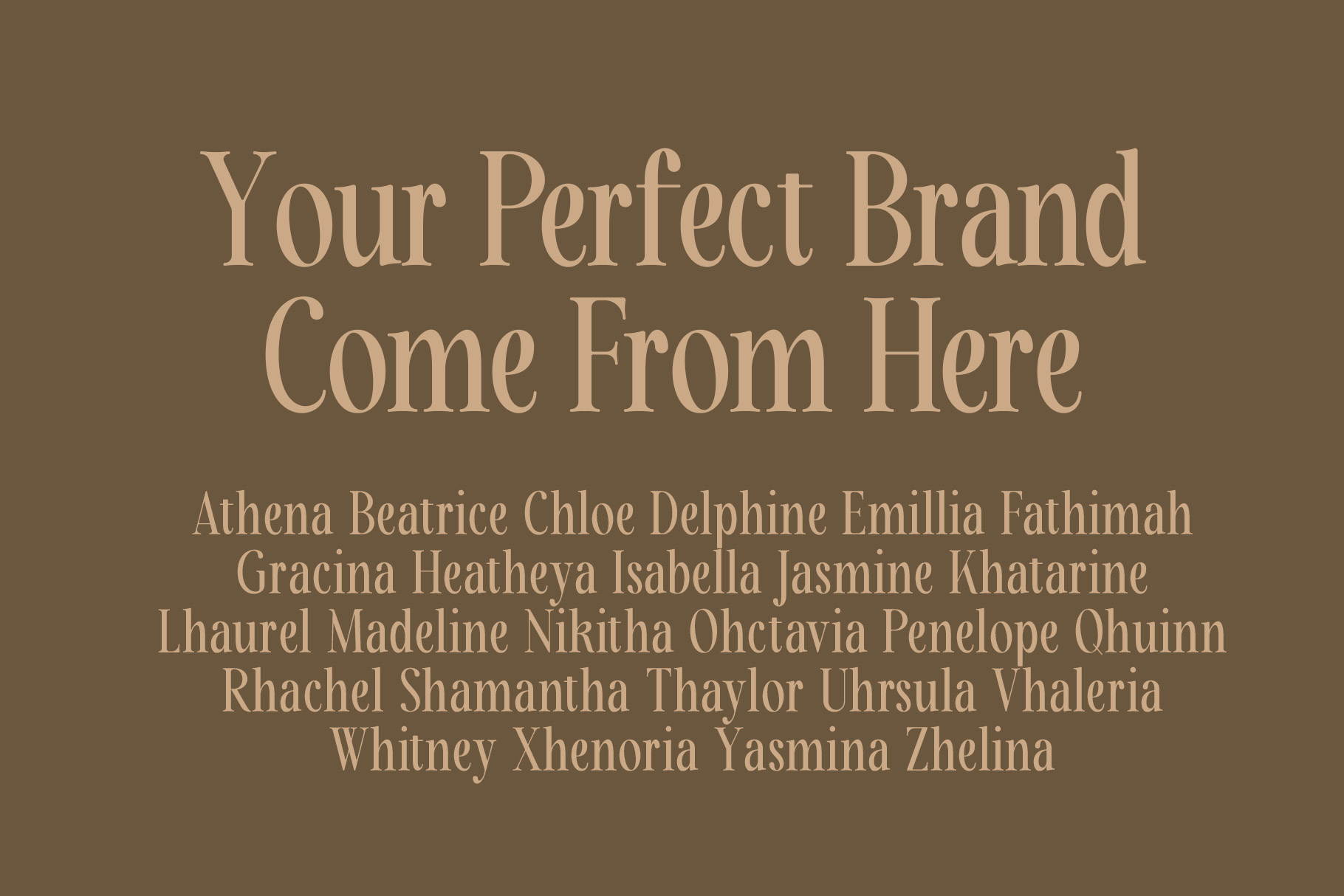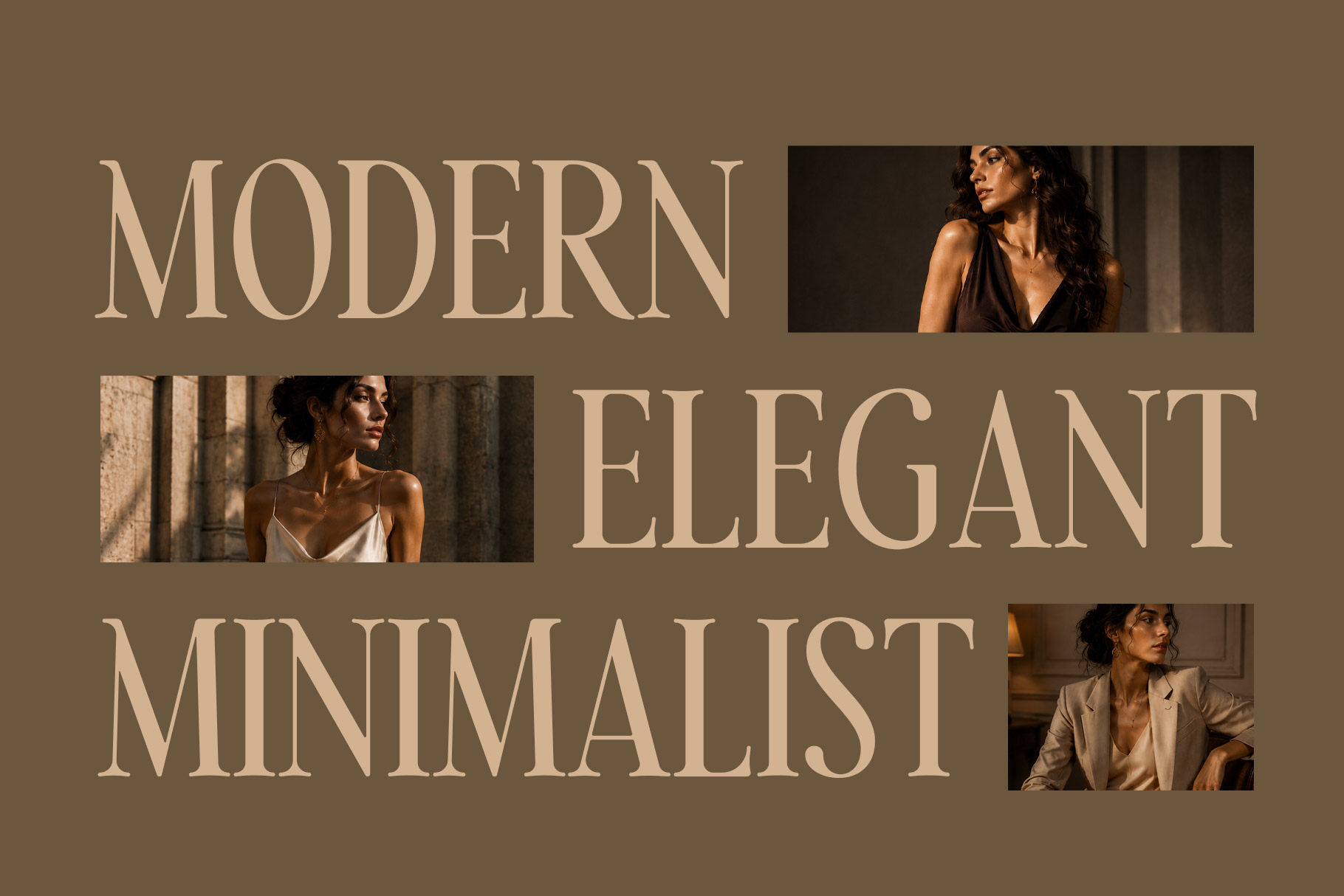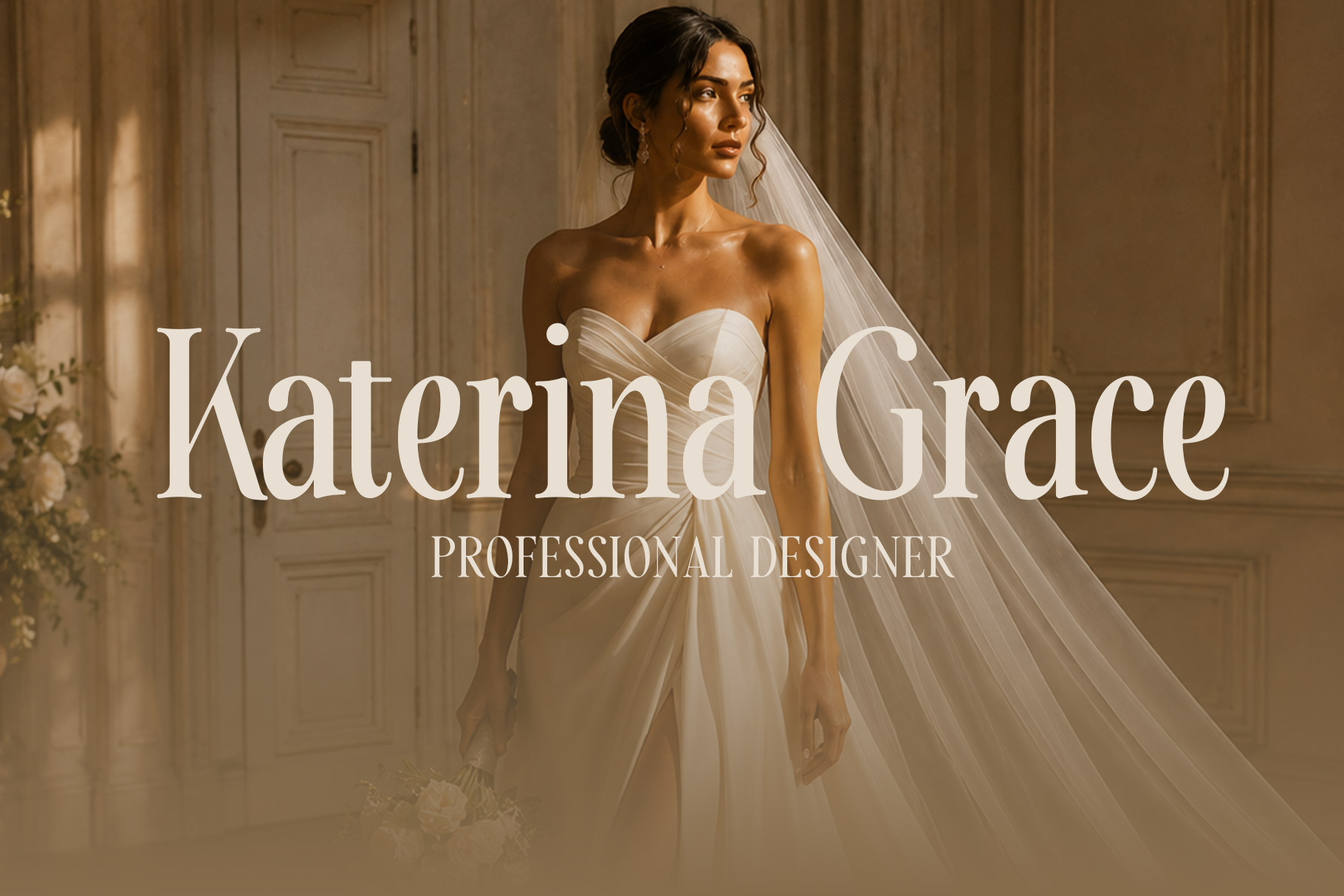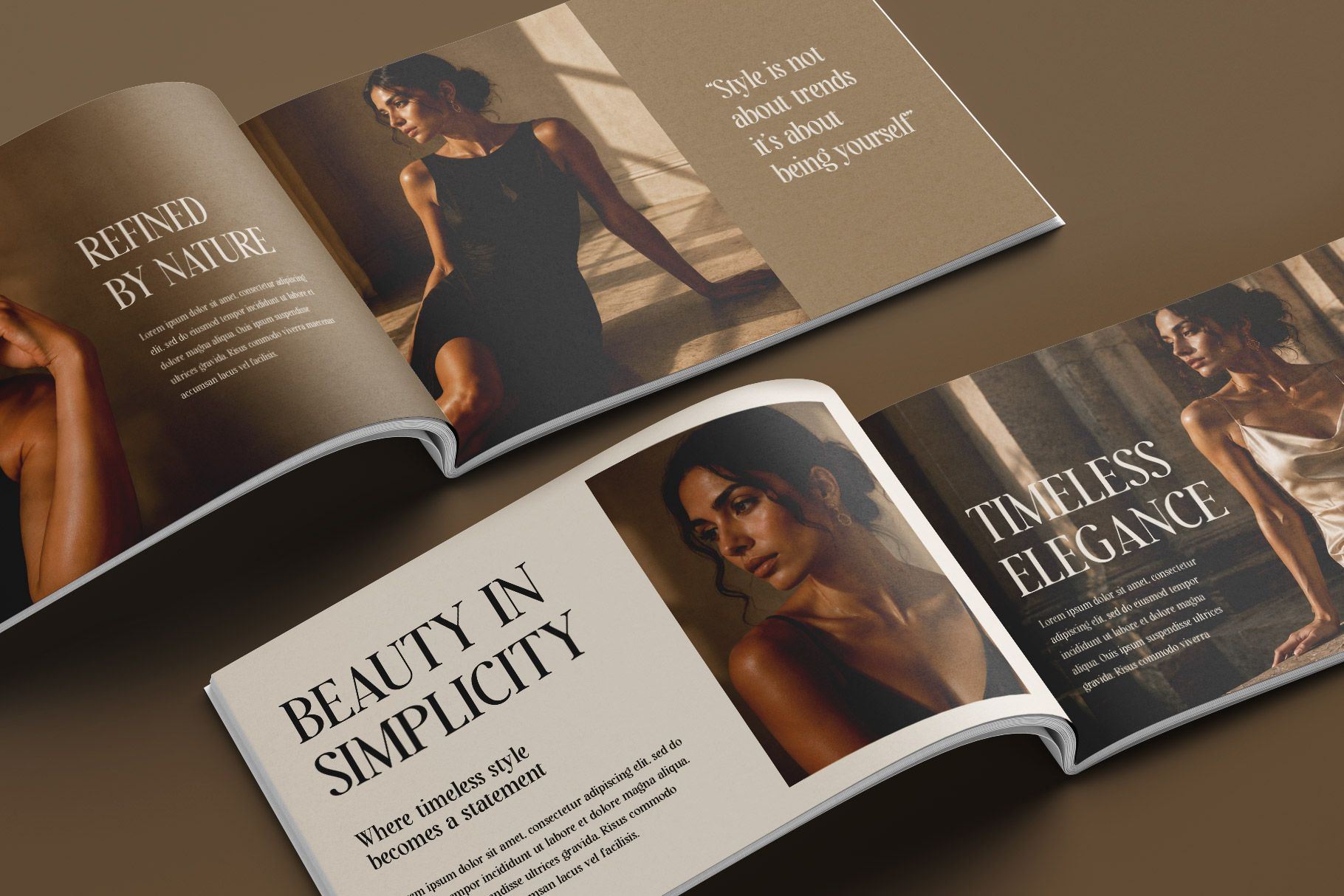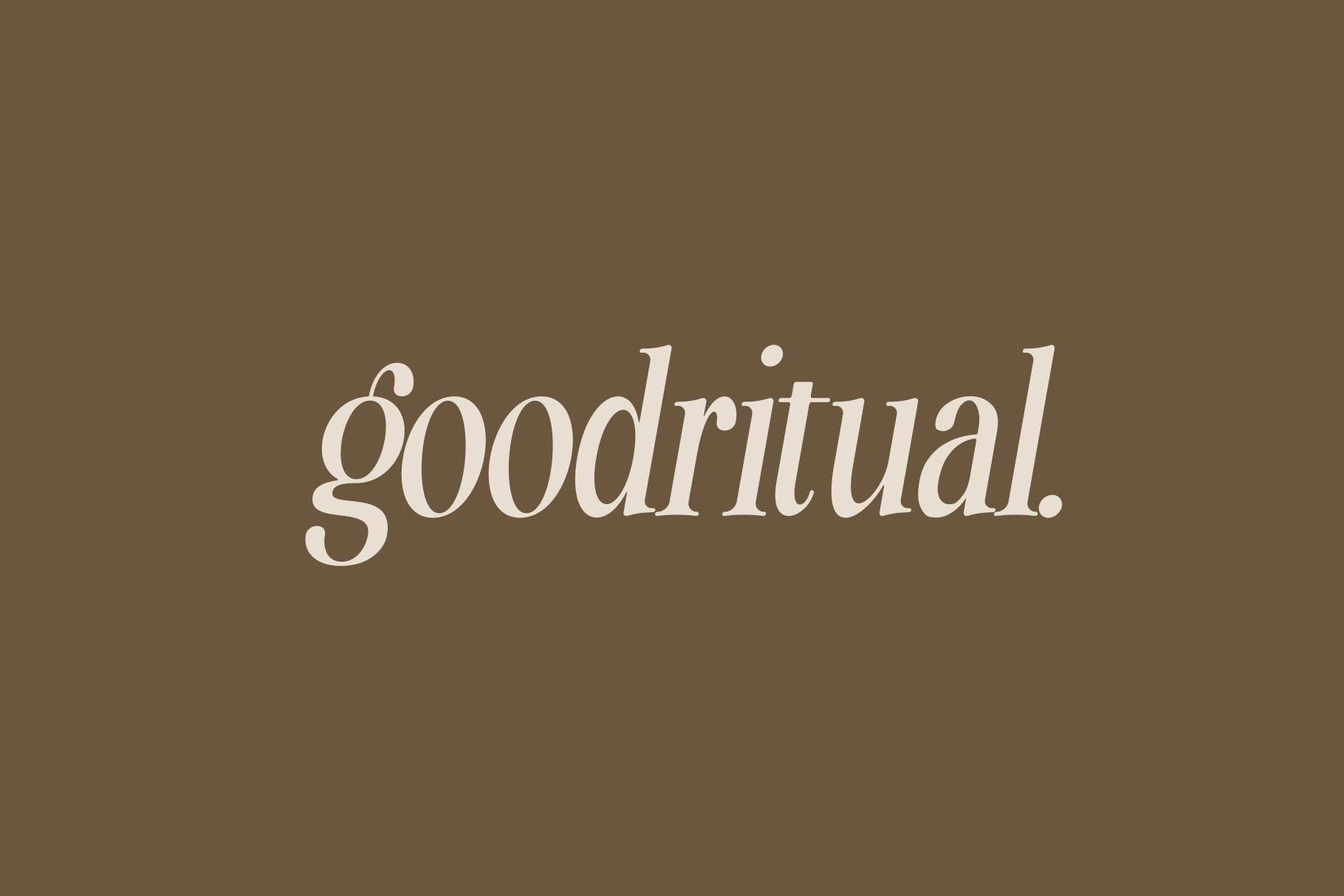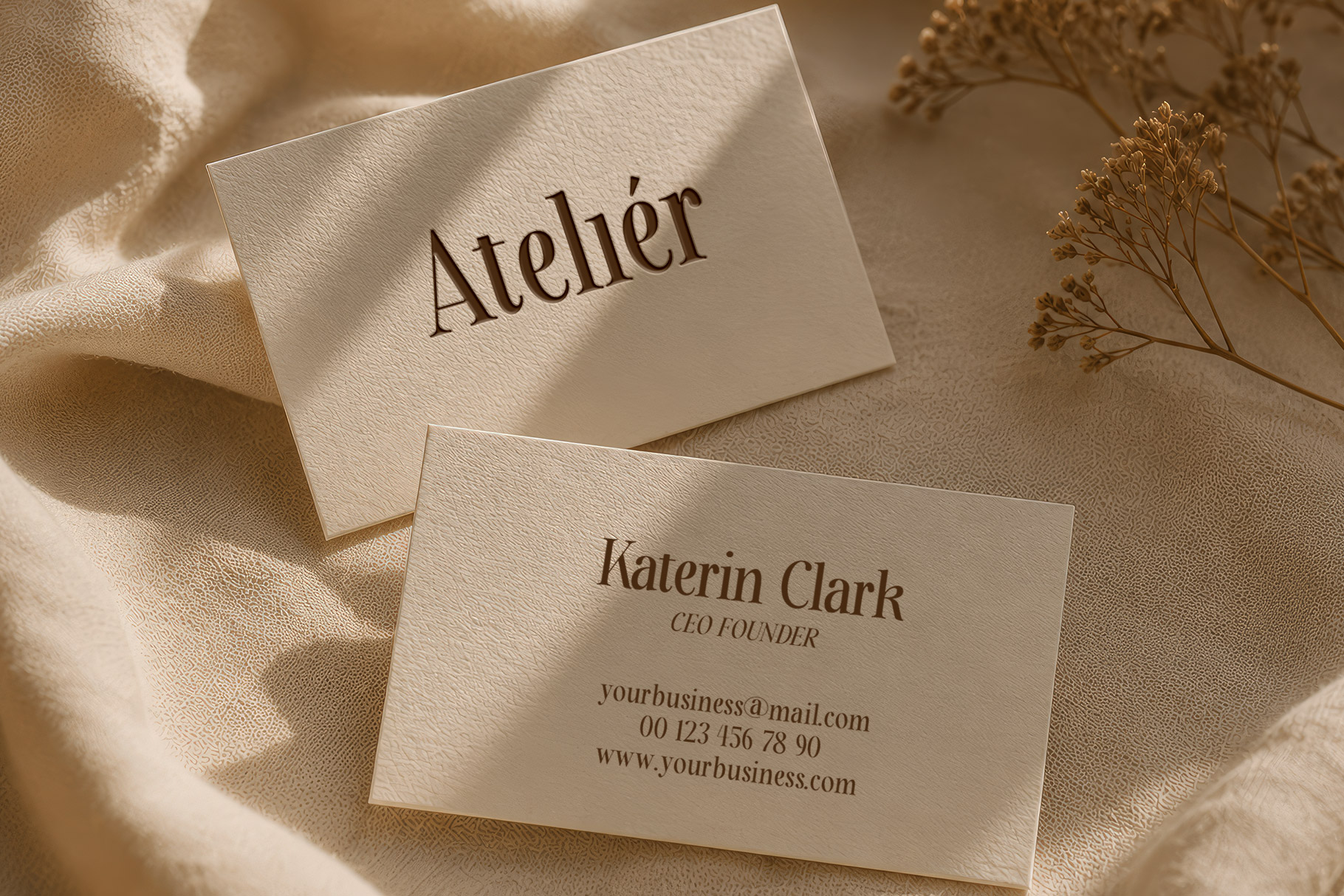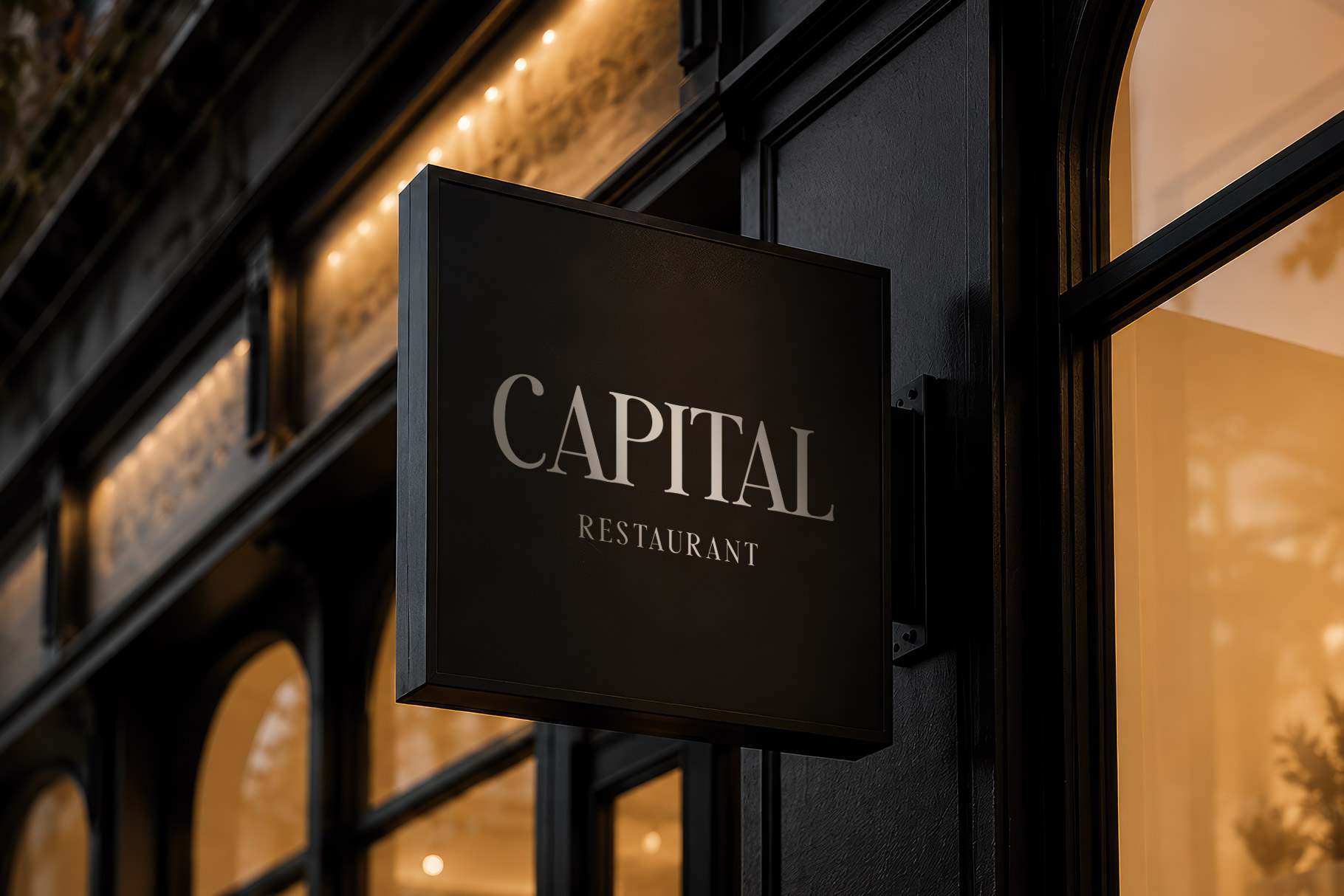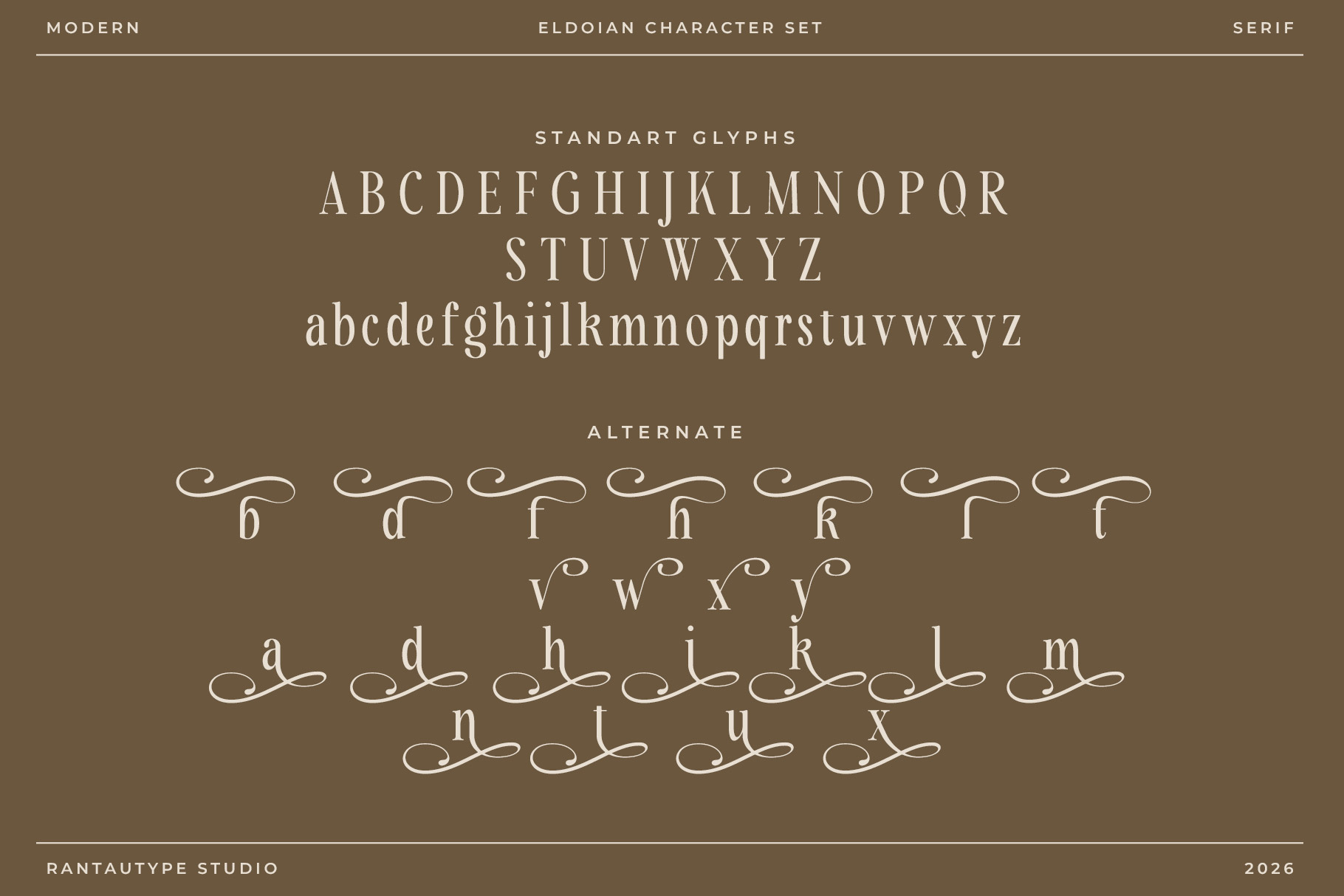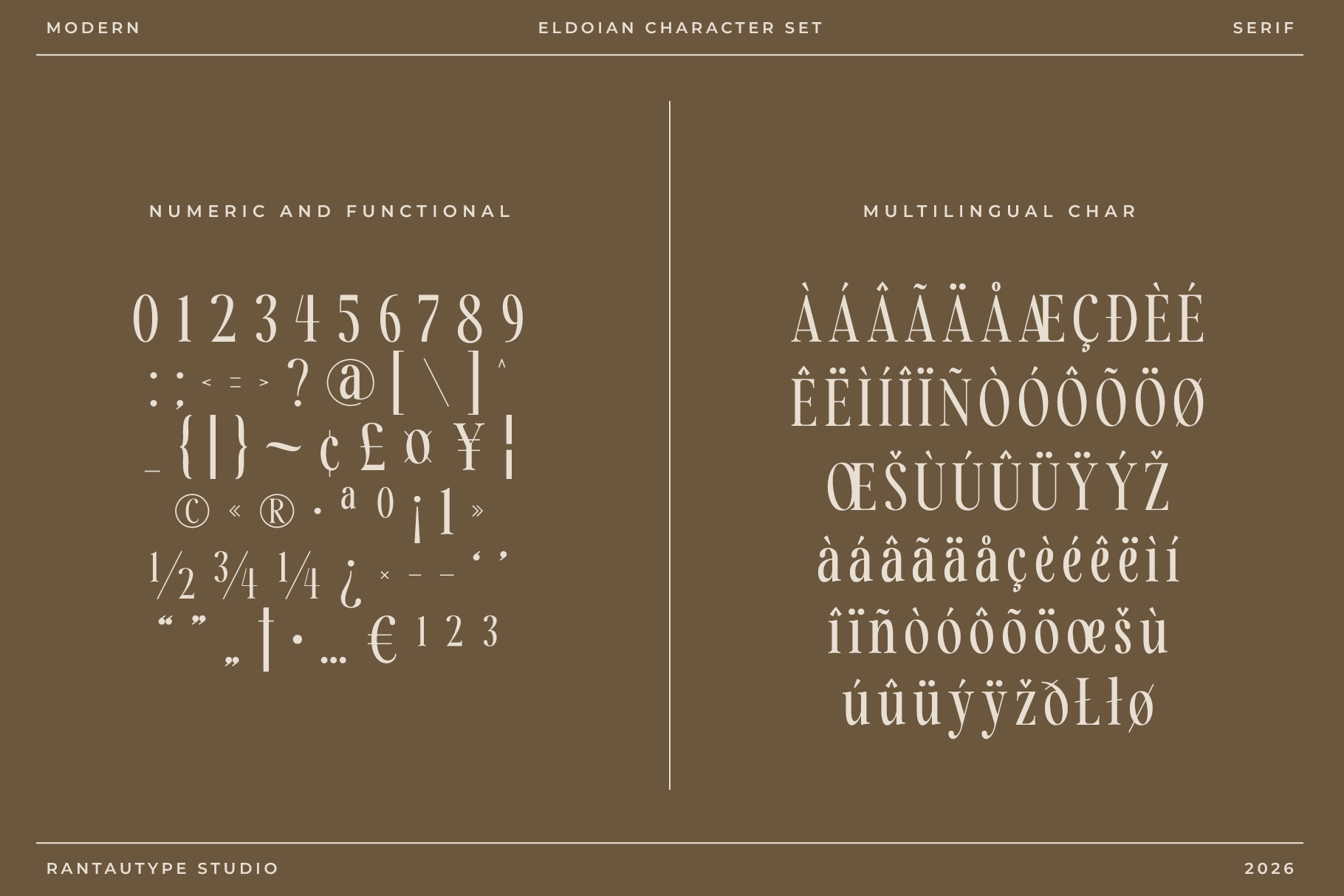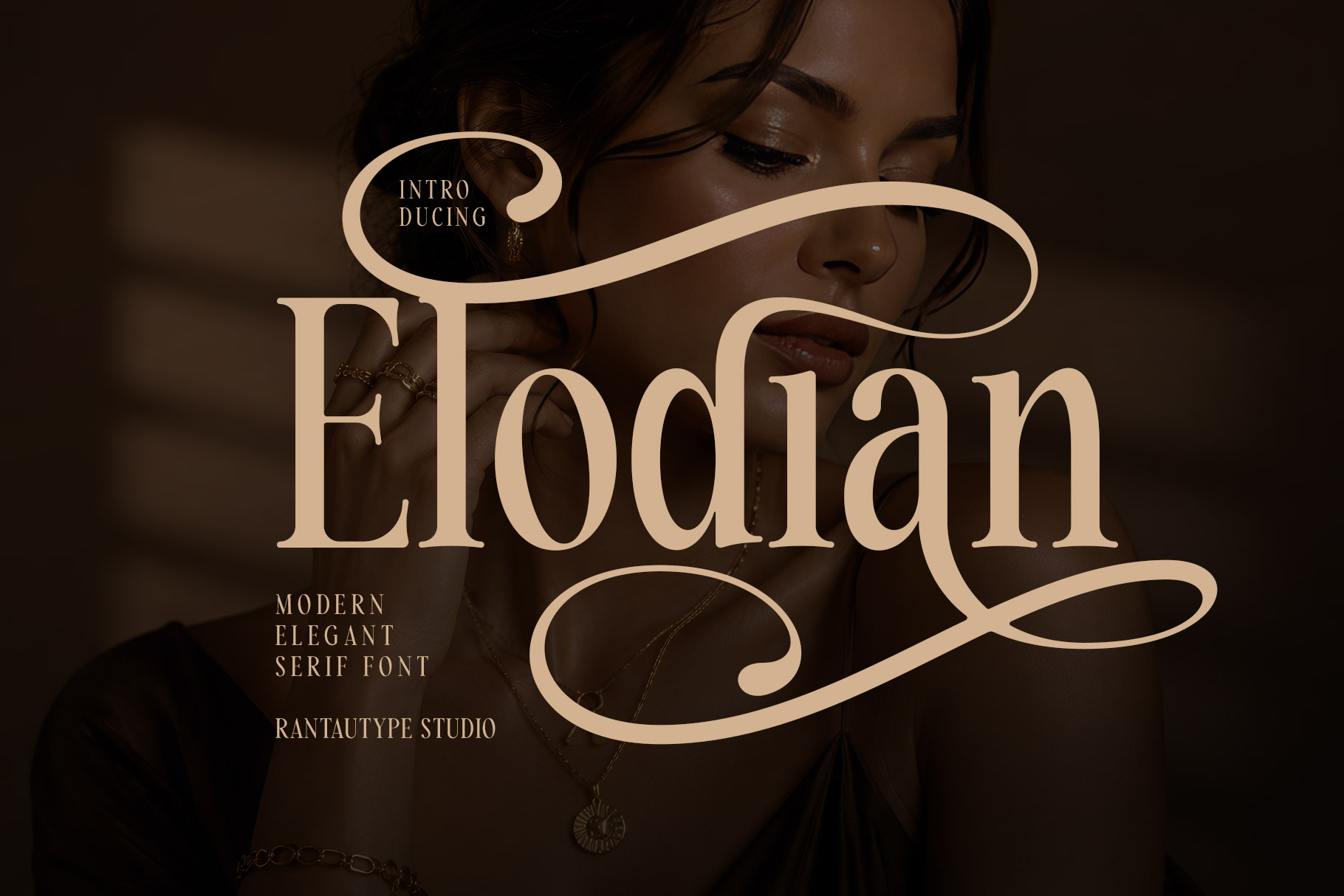
Elodian is modern stylish serif font exudes elegance, sophistication, and timeless luxury through its beautifully crafted letterforms and dramatic swash details. Designed with a perfect balance between classic serif traditions and contemporary aesthetics, the typeface immediately captures attention with its graceful curves and refined structure.
Elodianis a perfectly choice for any creative endeavor, creating, modern, lifestyle design such as logotype, title, cover, branding, invitations, wedding designs, display and magazine, social media posts, advertisements, printed quotes, product packaging, corporate brand, product designs, labels, photography, watermarks, special events and any other project with elegant touch.
Elodian Modern Serif Font